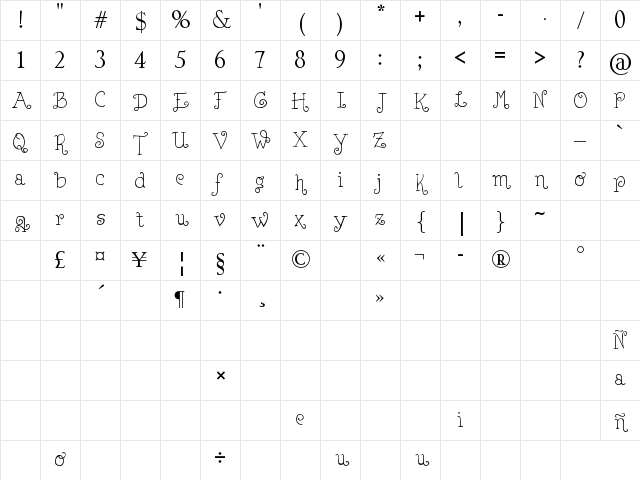
Complete Lejana Regular glyph index. Displaying only characters natively supported by Lejana Regular font.
Lejana is a composed and adaptable typeface that performs quietly and consistently across a wide range of design contexts.
Pro Tip: Use Lejana in both headline and body roles to test its range before committing to a single application.